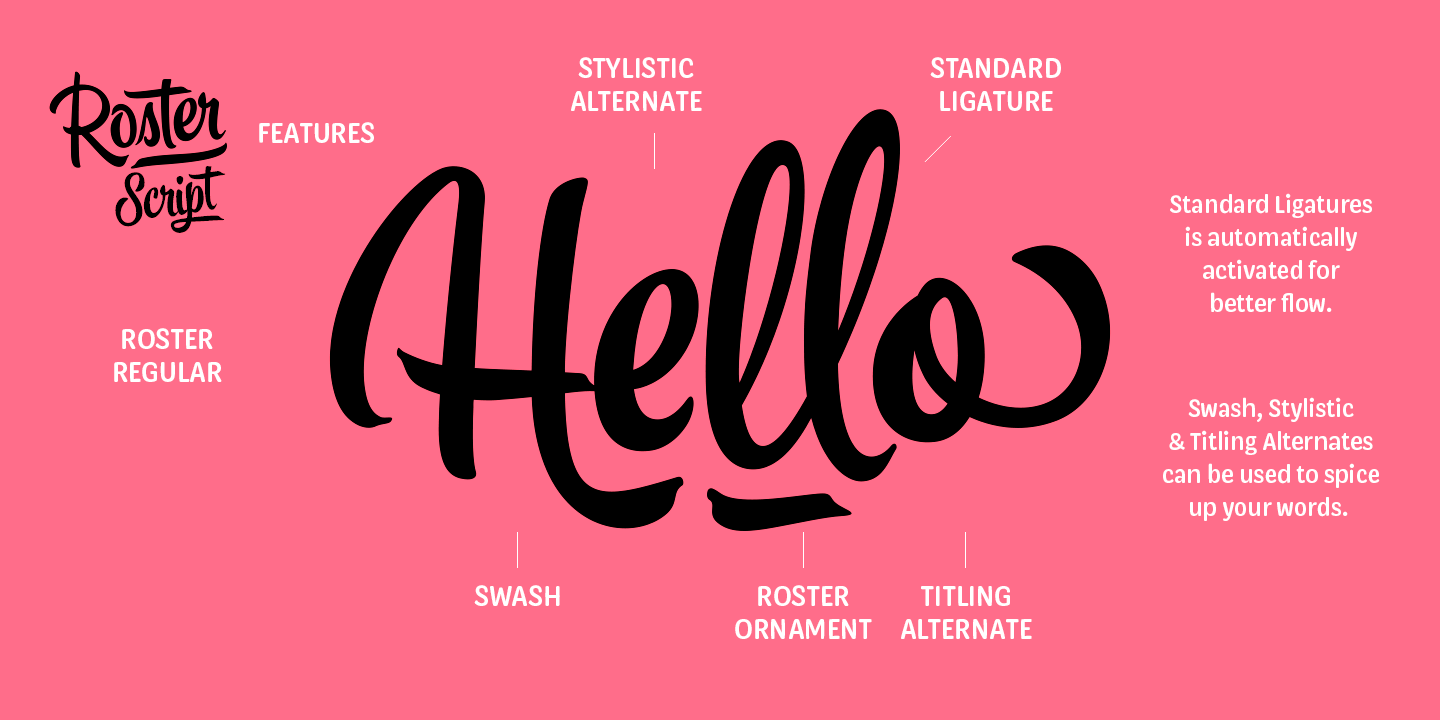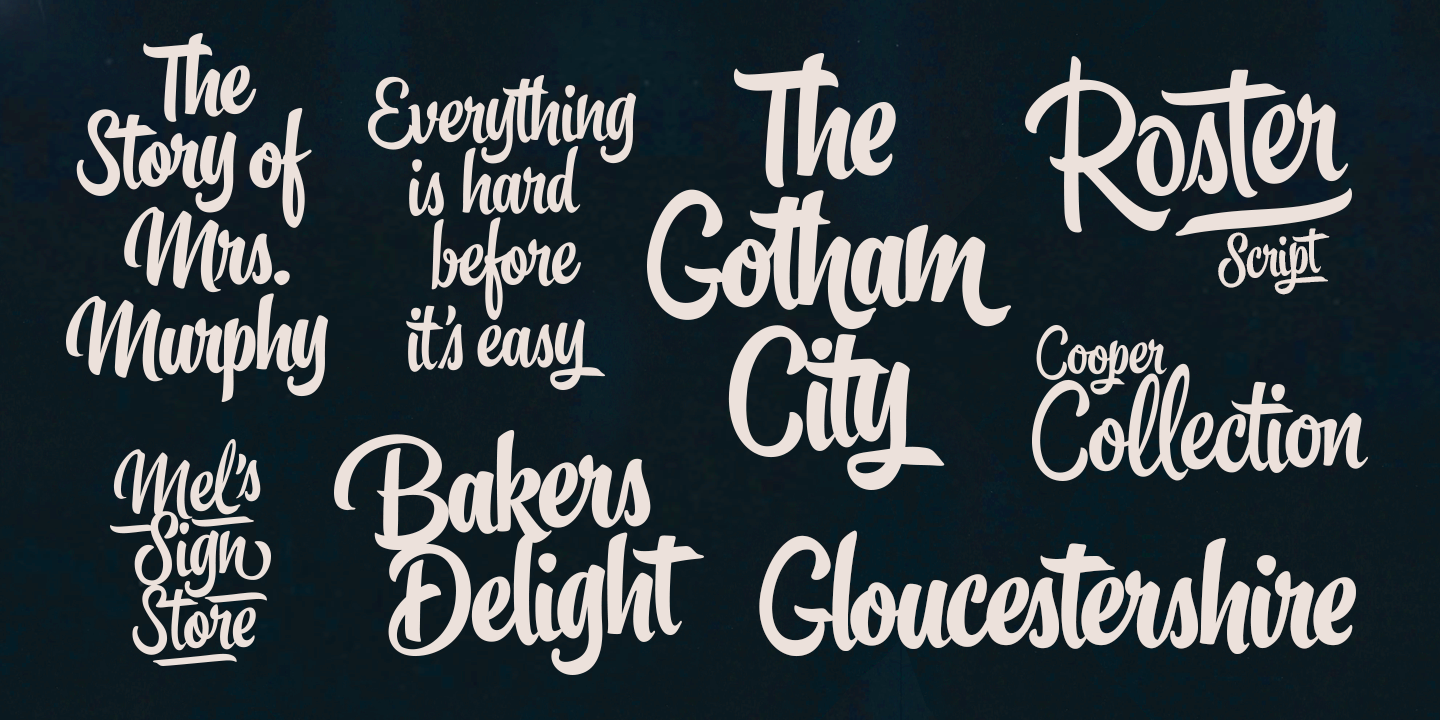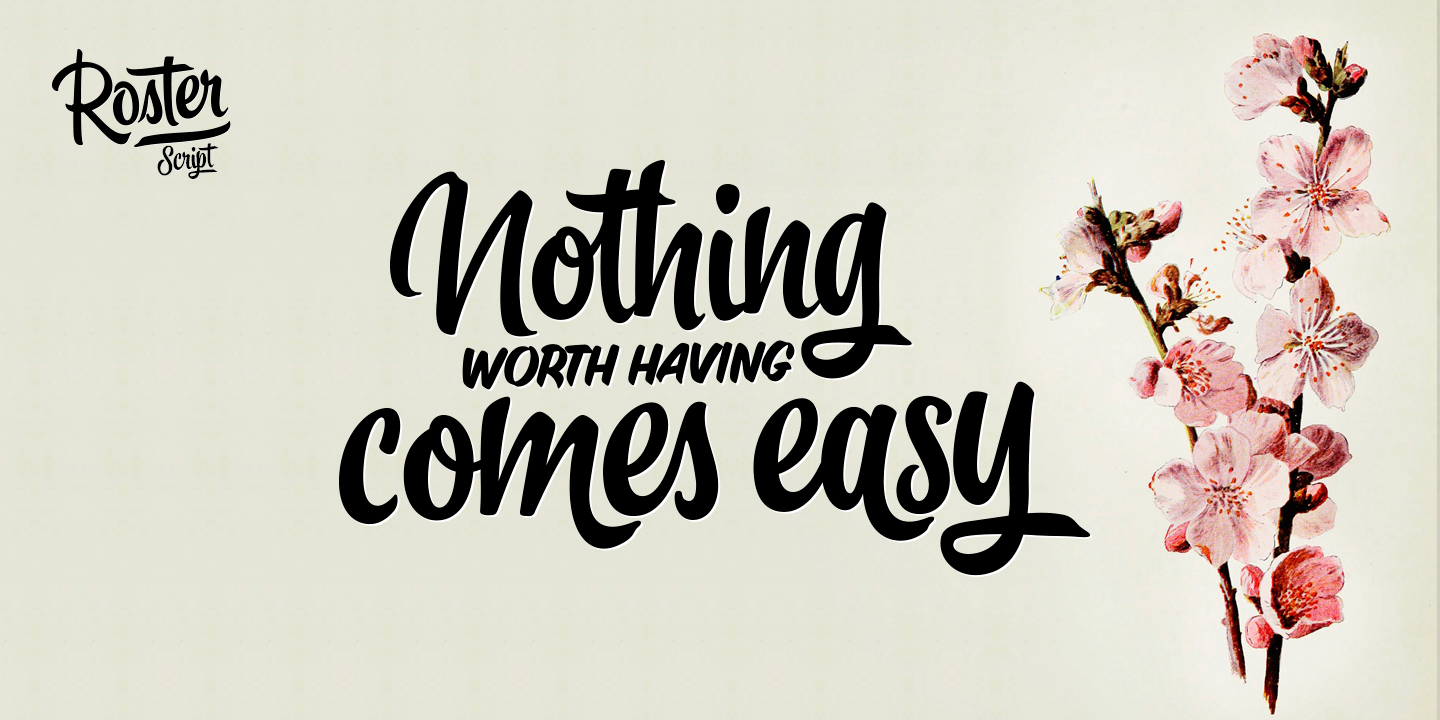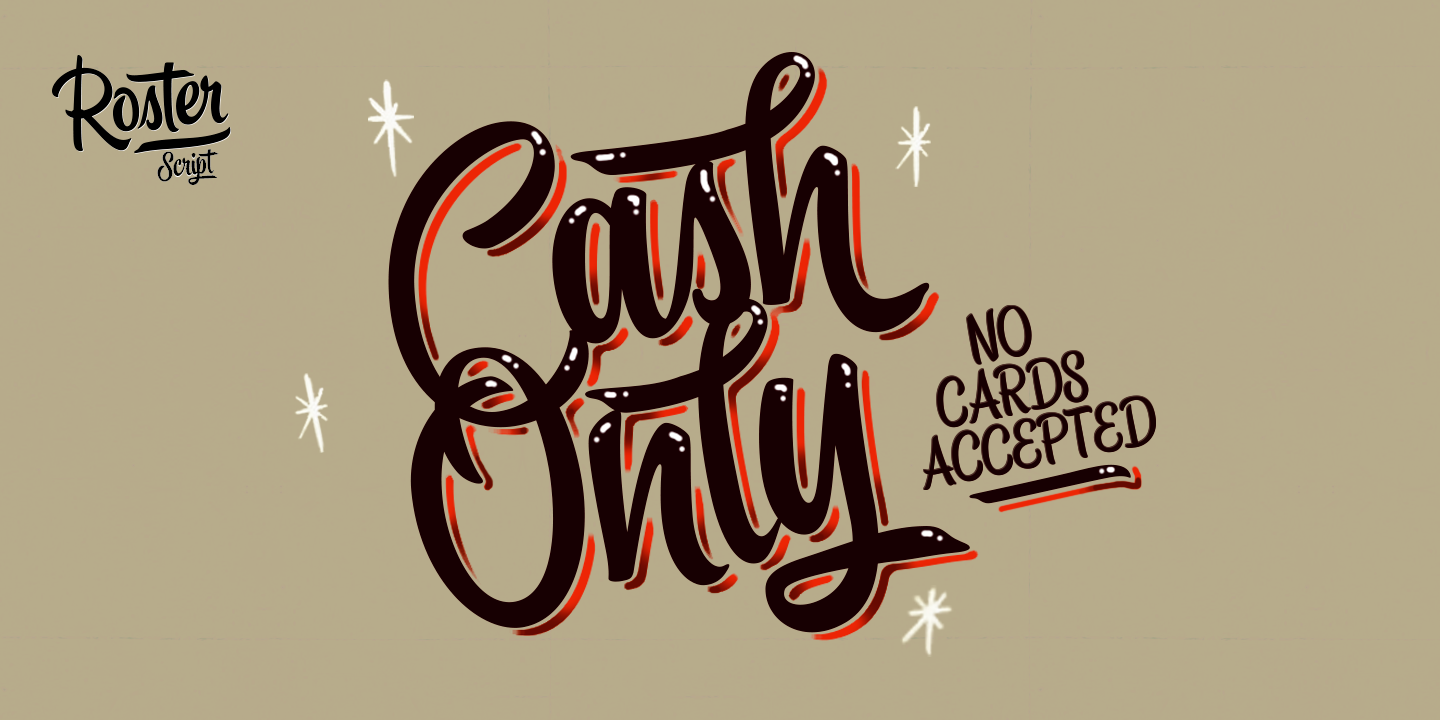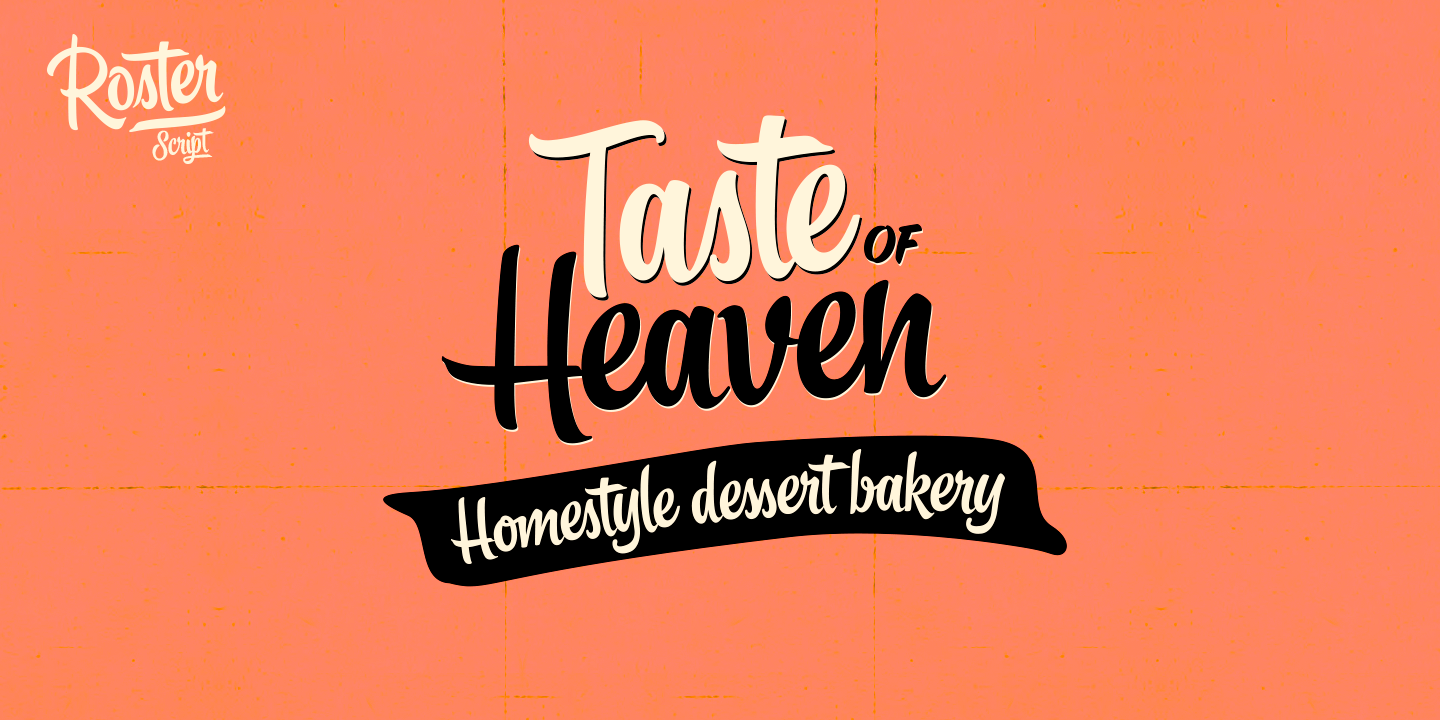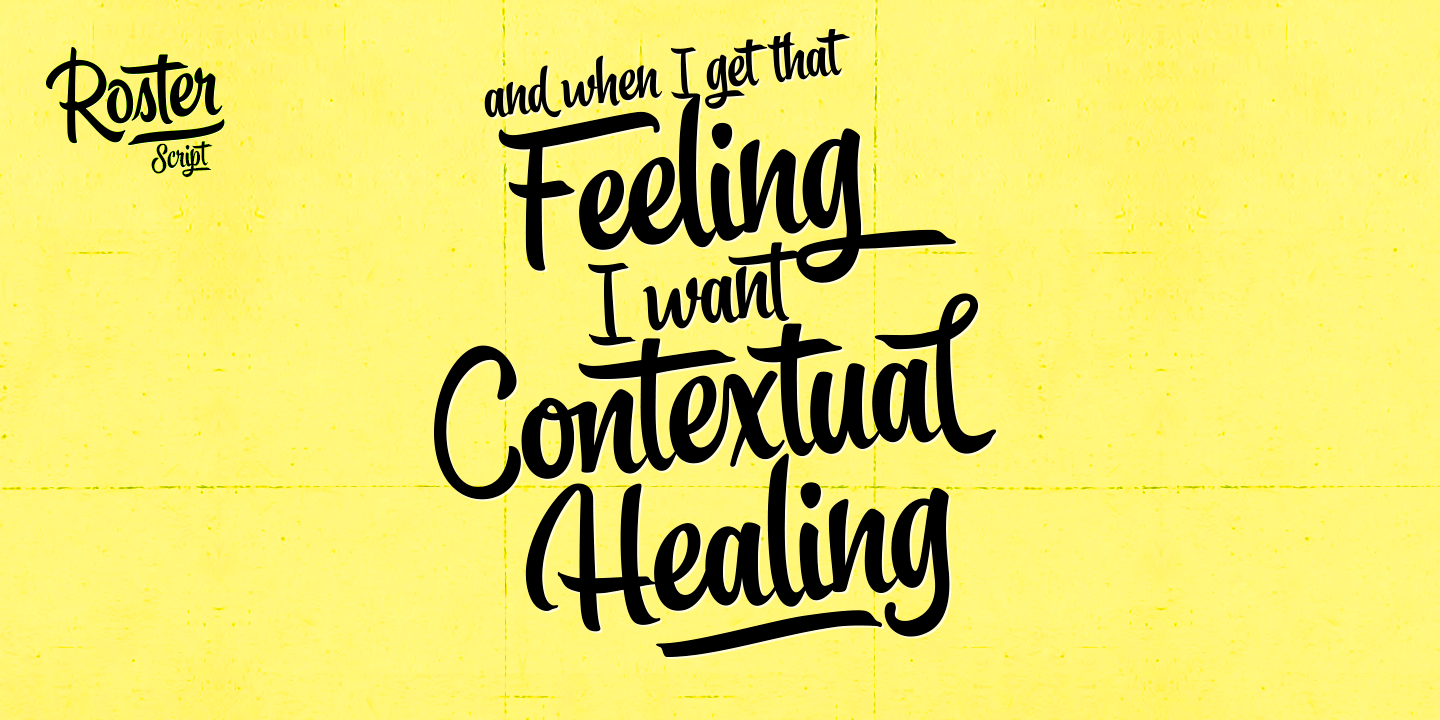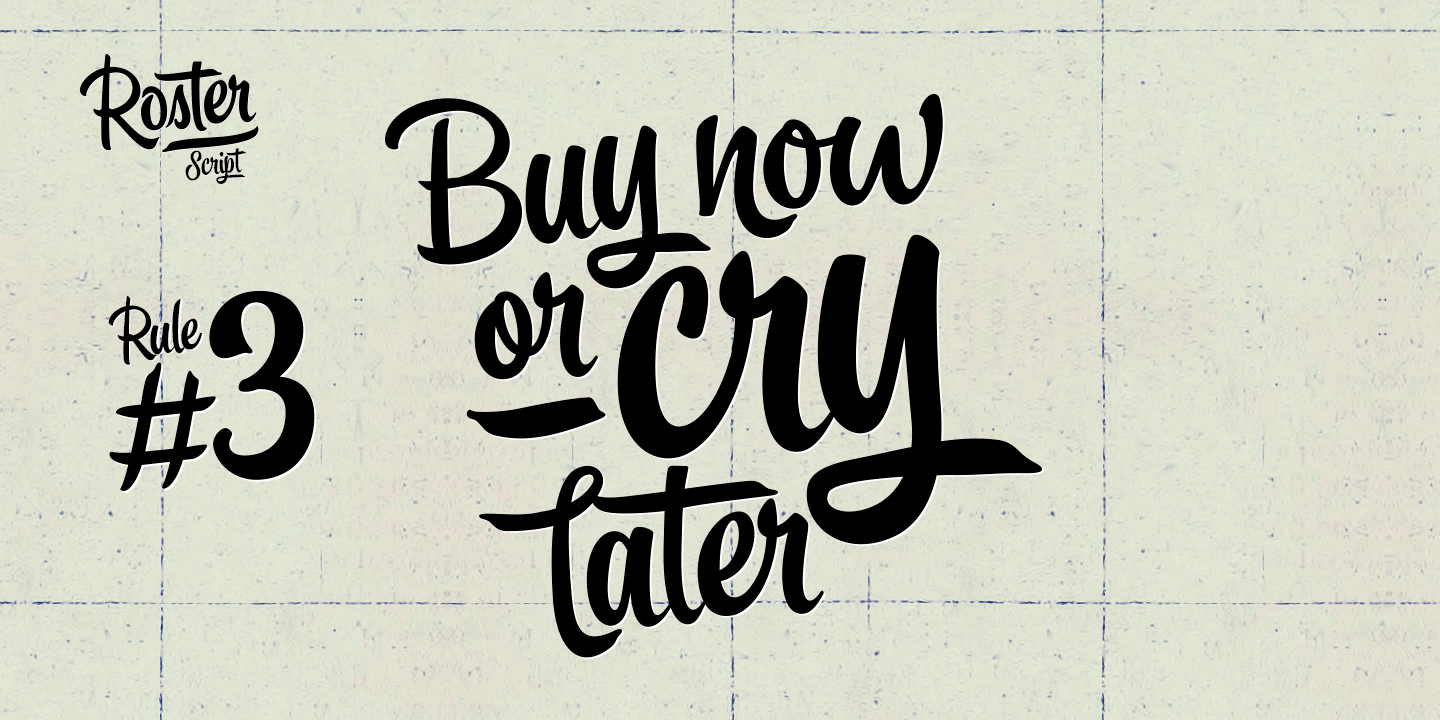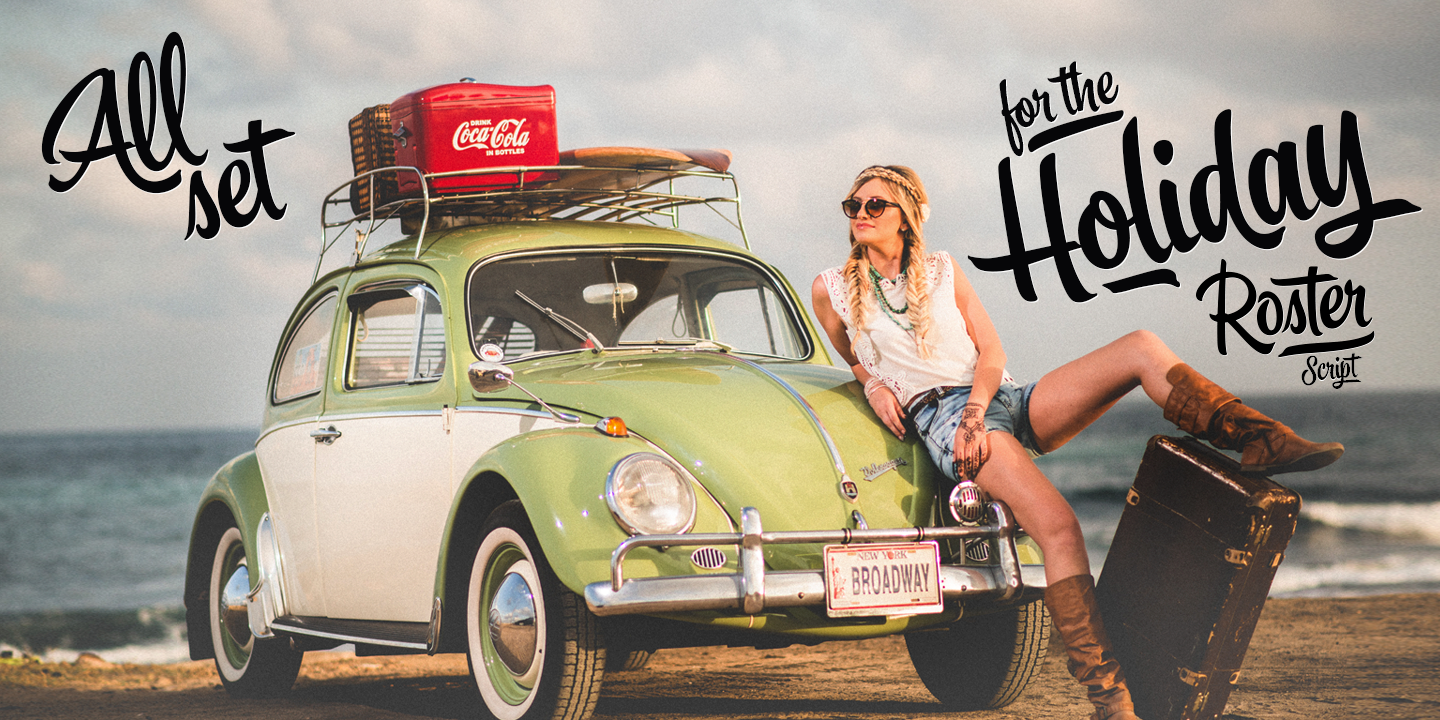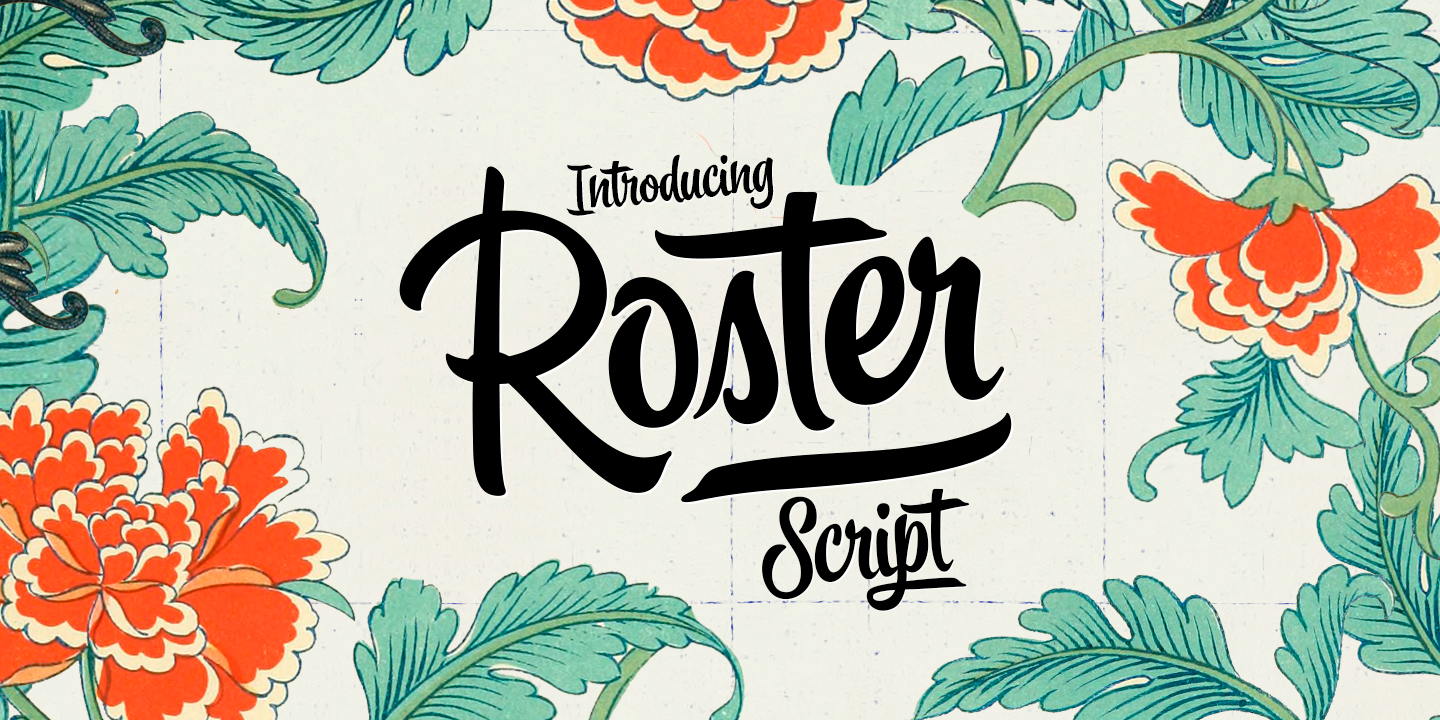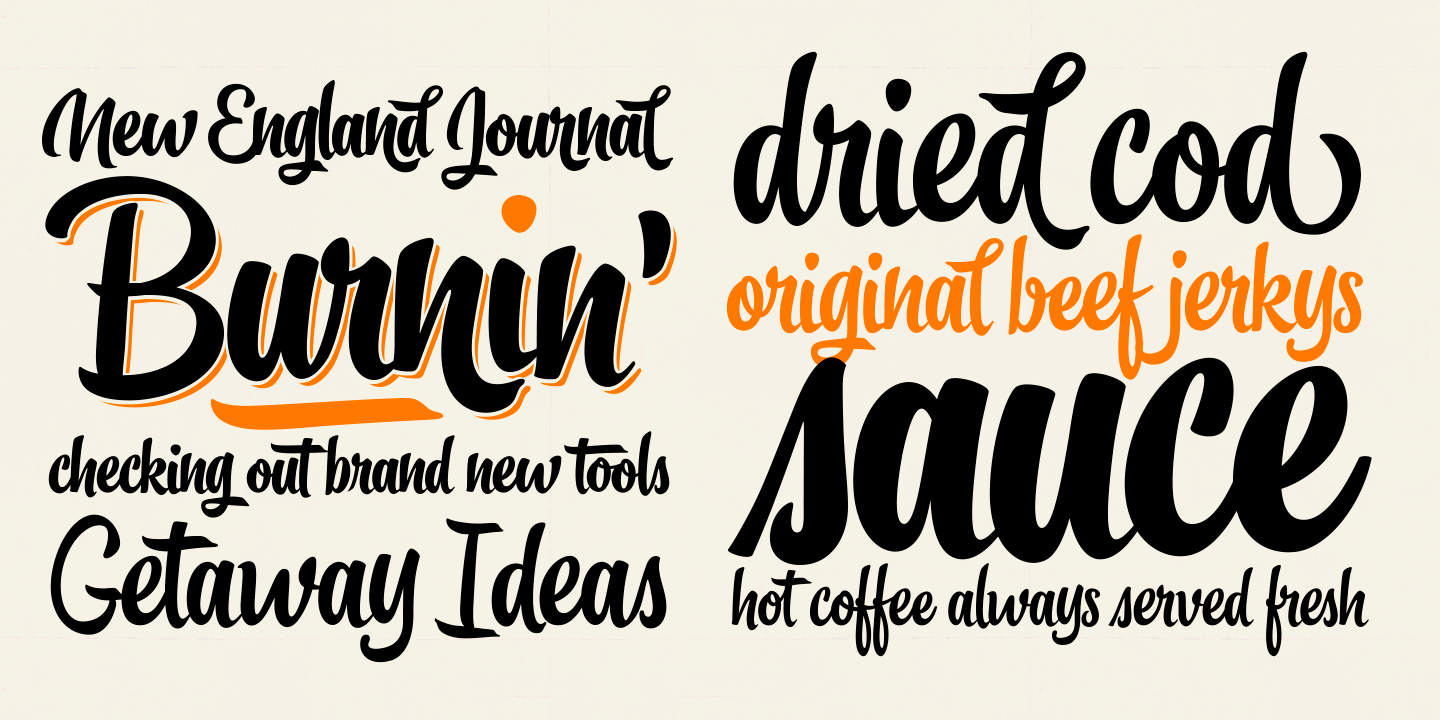
Roster is equipped with plenty of Ligatures and Contextual alternates that are automatically activated as long as you keep Standard Ligatures feature on. These features help maintain the flow and add variation when writing with Roster. There are also alternates for each basic character: click on Swash, Stylistic or Titling Alternates in any OpentType savvy program or check out for even more alternates from the Glyph Palette.
Since uppercase letters in Roster are mainly designed as initials I made Roster Caps for an all caps version of the capital letters. Roster Caps can be used on its own or to support Roster Script. Roster Ornaments is a set of swashes and brush strokes designed to support the font.